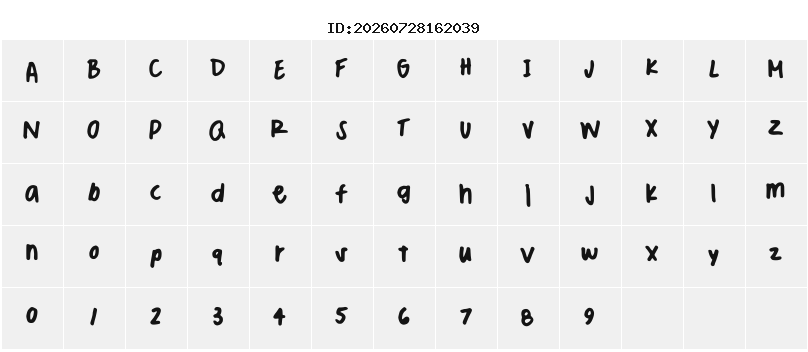
• Font Name: India
India.ttf is a modern, elegant sans-serif font designed for ultimate readability and visual harmony. Perfect for branding, headlines, web design, and print materials.